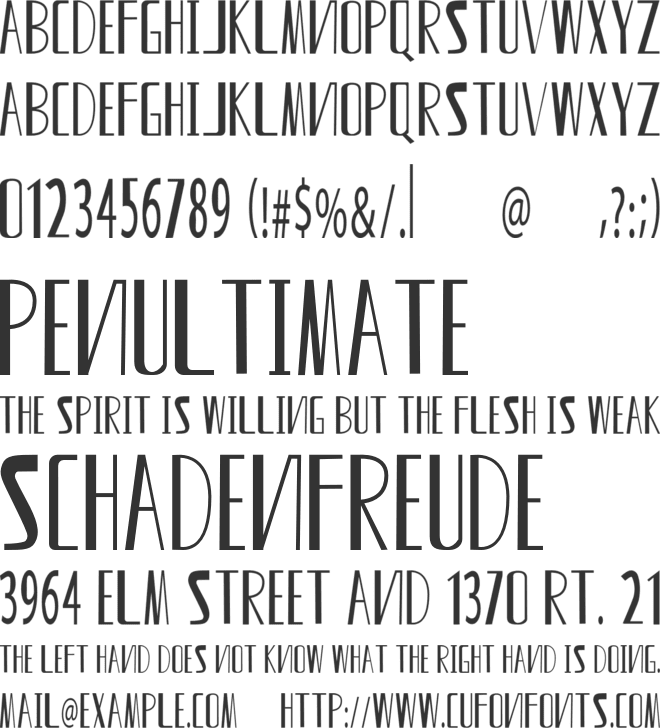
Khaku Font
Farz Studio
khaku is a simple and interesting display font. Its friendly feel makes this font incredibly versatile, fitting a wide range of contexts. Add it to your creative ideas and notice how it makes them stand out!
the latest style font are perfect for wall displays, wedding invitations, social media post logos, advertising, product packaging, product design, labels, photography, watermarks, invitations, stationery, quotes and any project that requires san serif font.